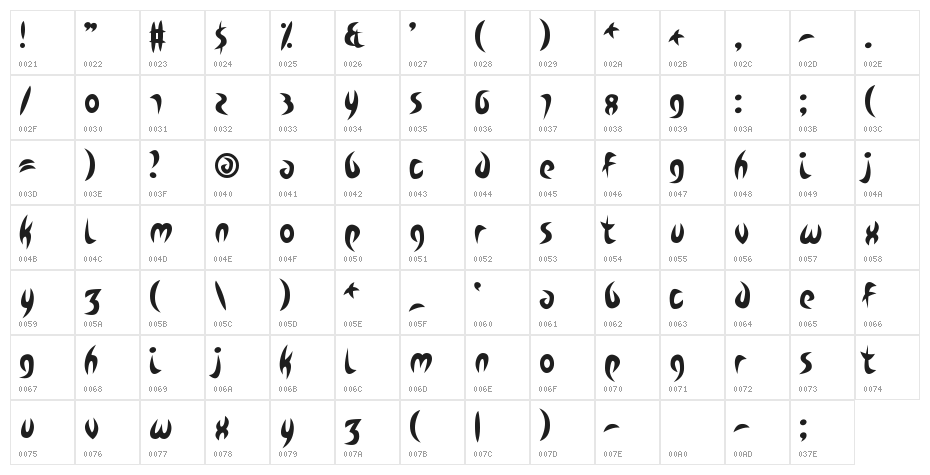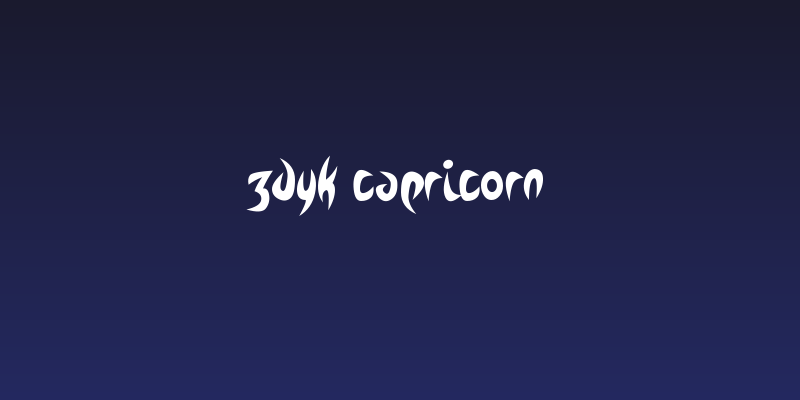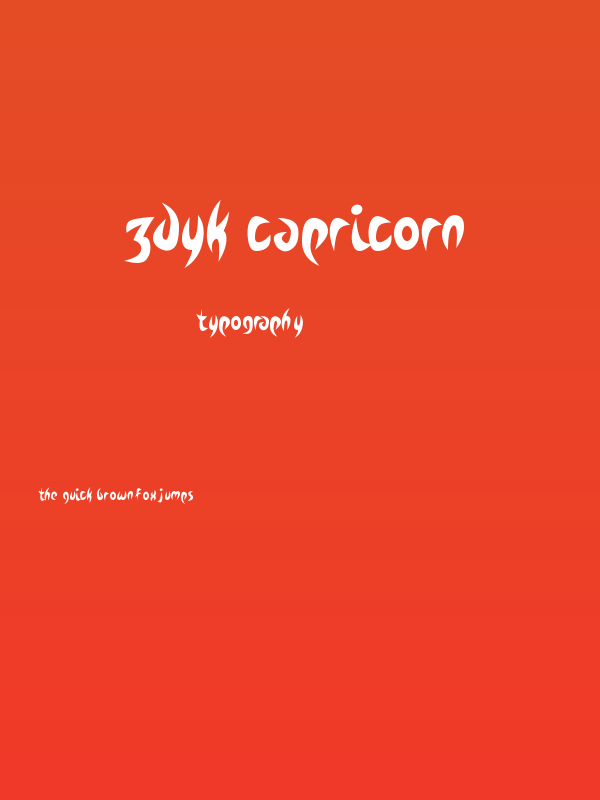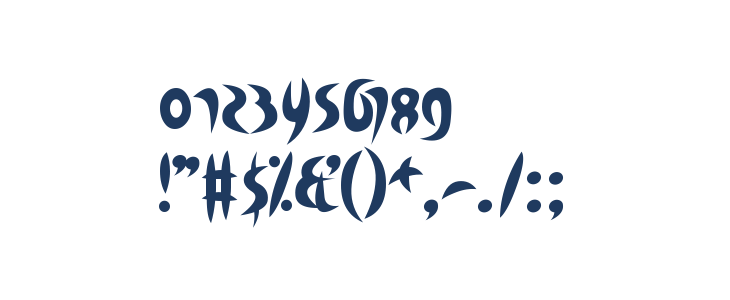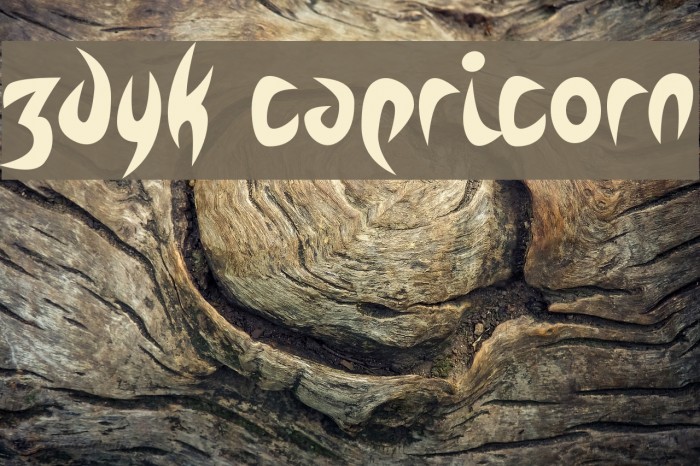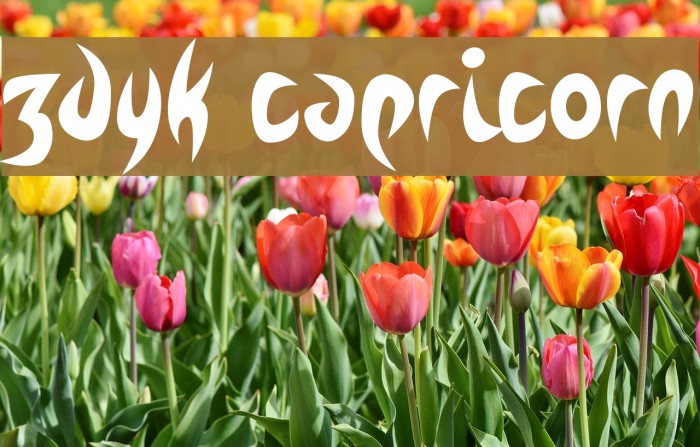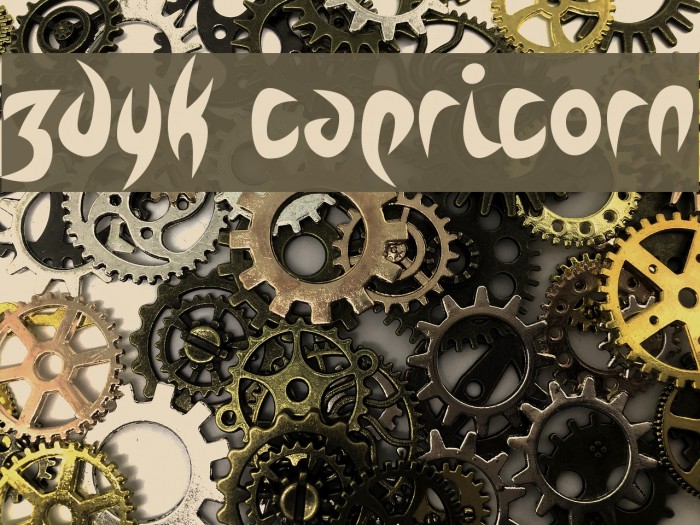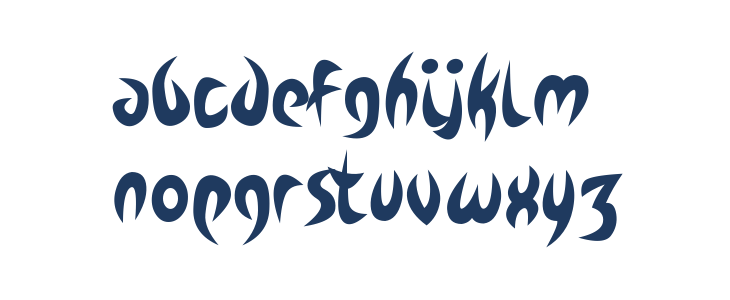
Zdyk Capricorn Font
Zdyk Capricorn Description
This font exhibits a bold and dynamic style with sharp, angular edges and a distinctively modern flair. The characters are designed with a unique curvature that gives them a sense of movement and energy. The uppercase and lowercase letters maintain a consistent design theme, with exaggerated curves and pointed terminals that create a striking visual impact. The numerals follow the same aesthetic, ensuring uniformity across all characters. Special characters are crafted with the same attention to detail, making them seamlessly integrate with the rest of the font. This font's dramatic appearance makes it ideal for projects that require a bold statement.